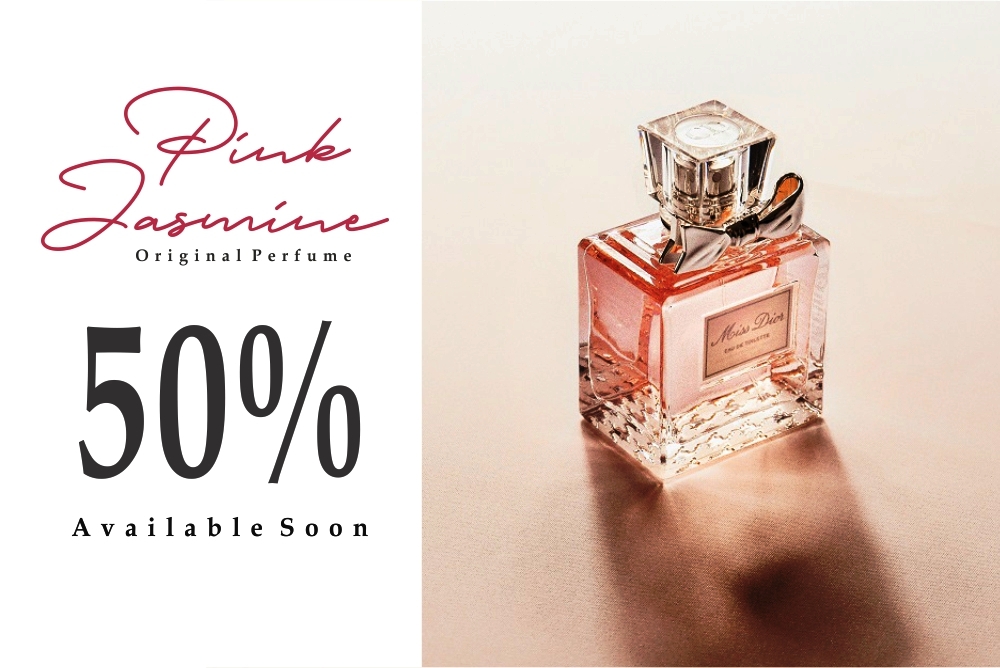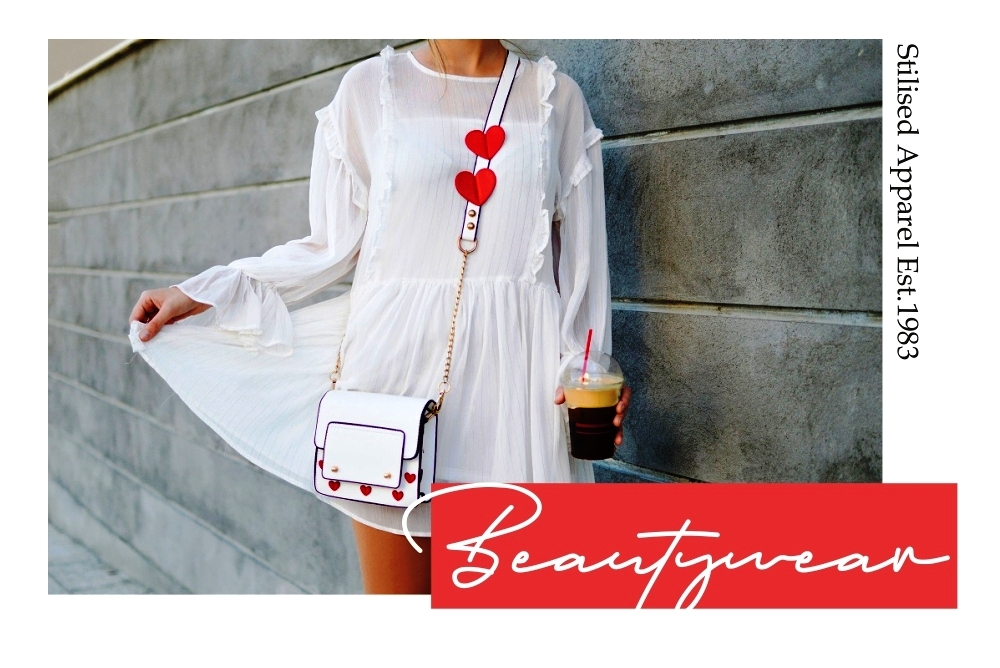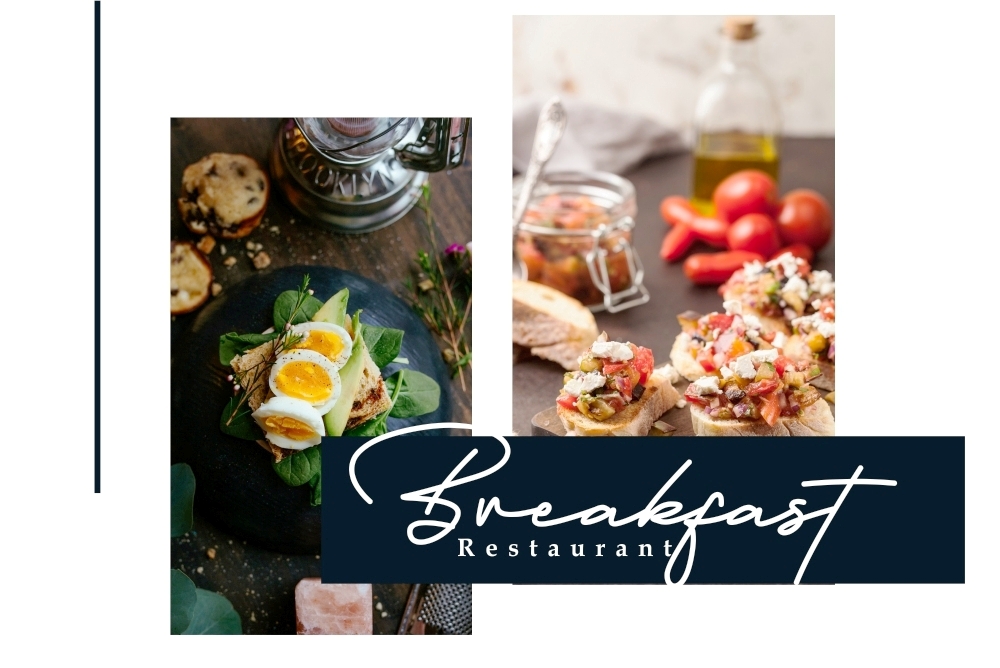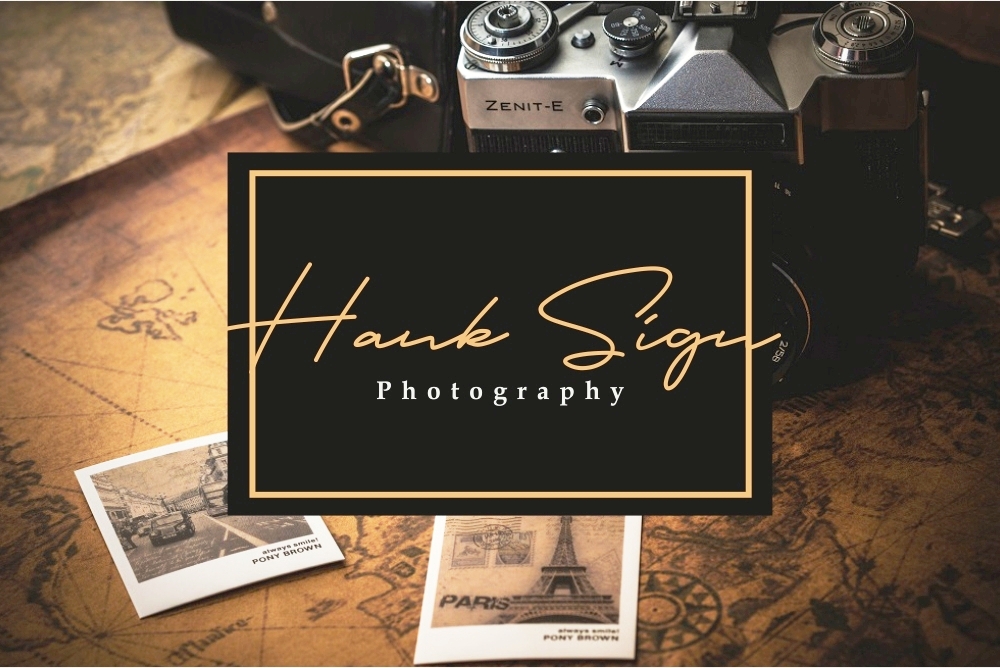
Destiny Script Font
Destiny font is signature font that has slender and chic
feeling, and it works perfectly in all sort of photo, design projects like
fashion, wedding,  branding, and more.
Destiny font Complete with :
– Uppercase
– Lowercase
– Ligatures
– Numerals
– Punctuation
– International Language
Also You can use Destiny  for logotype, headline, instagram post,
greeting cards, invitations, posters, book covers, banners, stationery etc.